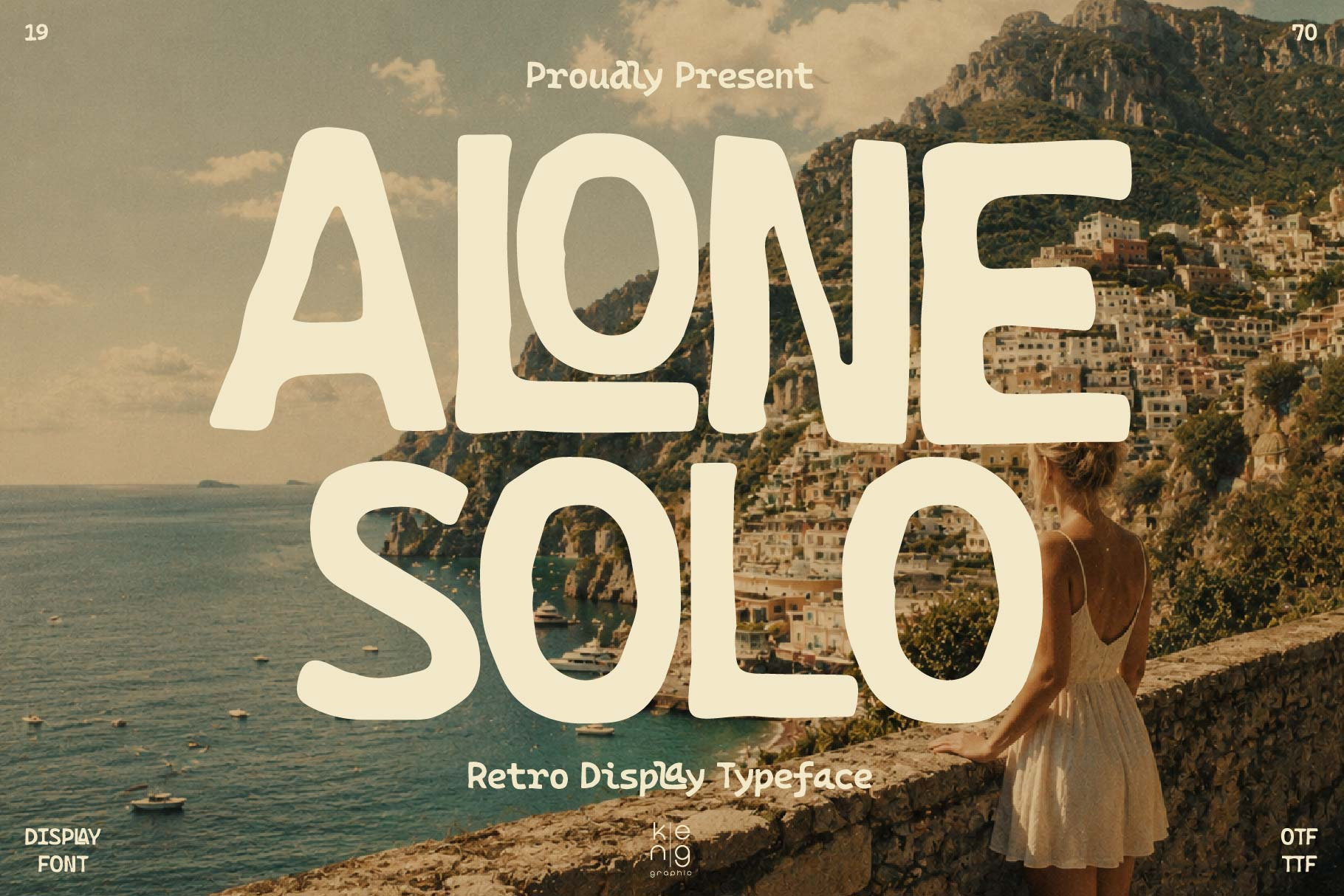
Alone Solo Font
“A nostalgic journey through the sunlit coastlines of 1970s Italy — where vintage roads, ocean breeze, and timeless beauty come together in one unforgettable view.”